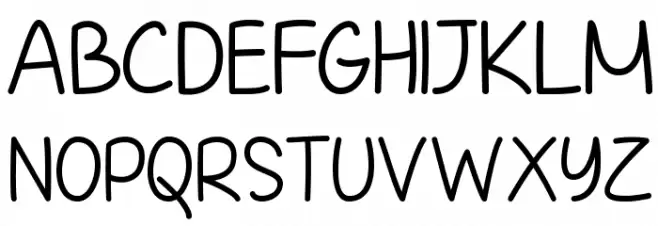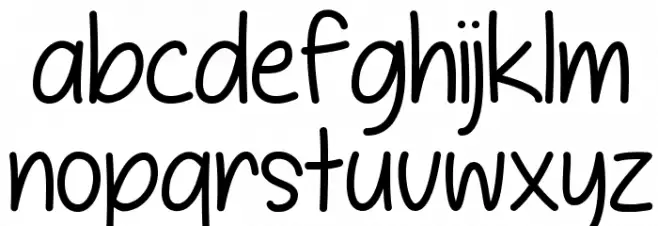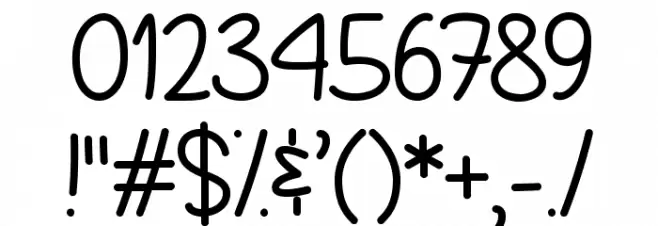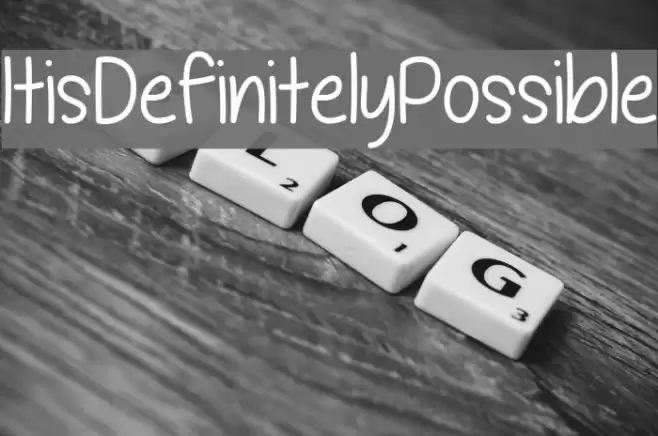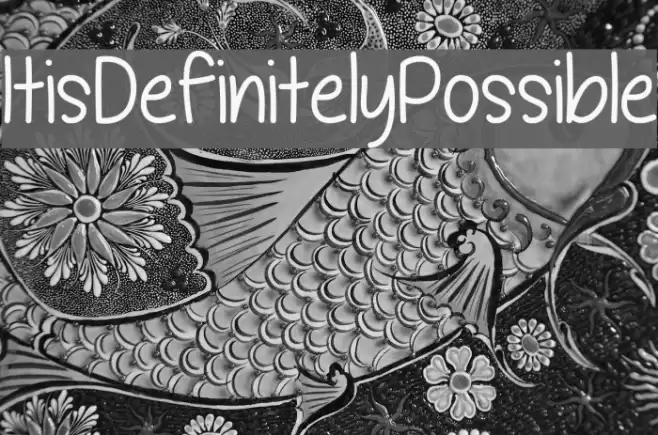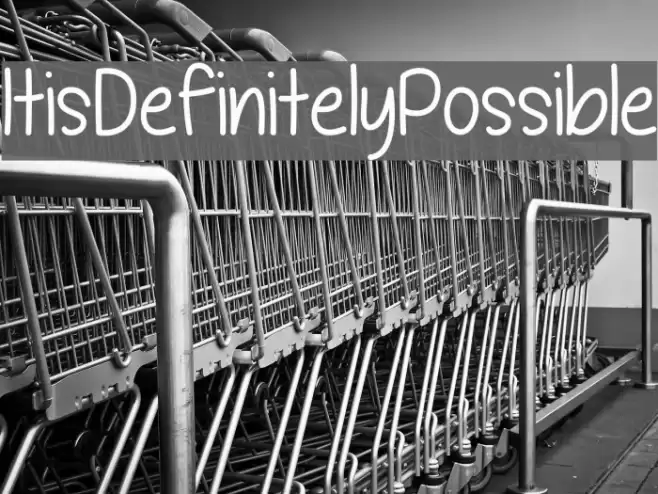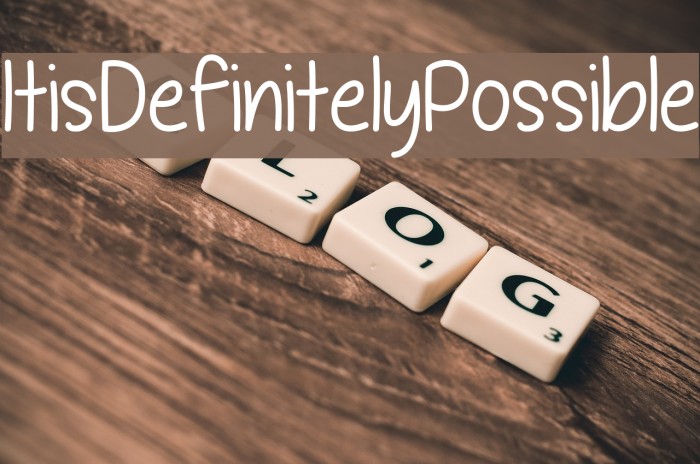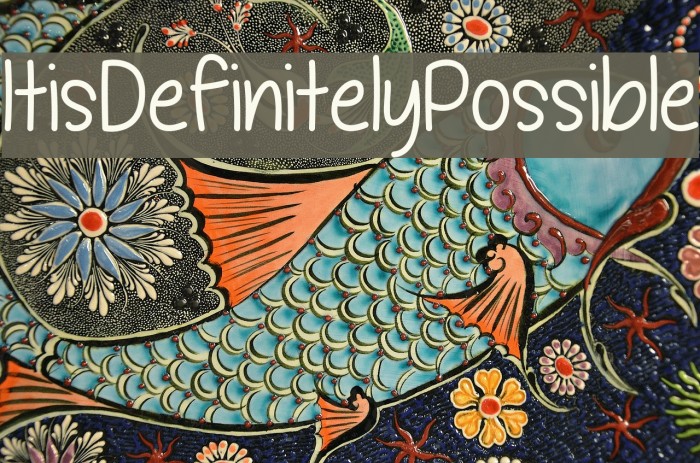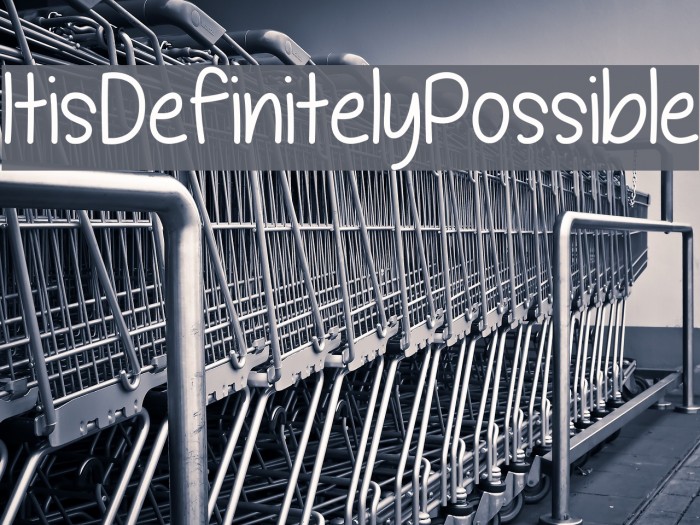
ItisDefinitelyPossible
This playful and informal font features a handwritten style with smooth, rounded edges and a casual appearance. The characters are slightly irregular, adding a personal touch to the text. The uppercase and lowercase letters maintain a consistent flow, while the numerals and special characters complement the overall aesthetic. The font's simplicity and readability make it suitable for a variety of creative projects, offering a friendly and approachable vibe.
A playful, handwritten font with smooth, rounded edges and a casual style.
- Proposed Projects: Ideal for greeting cards, children's books, casual branding, and social media graphics.
- Overall Style: Casual
- Use Case: Headlines, Informal text, Creative projects